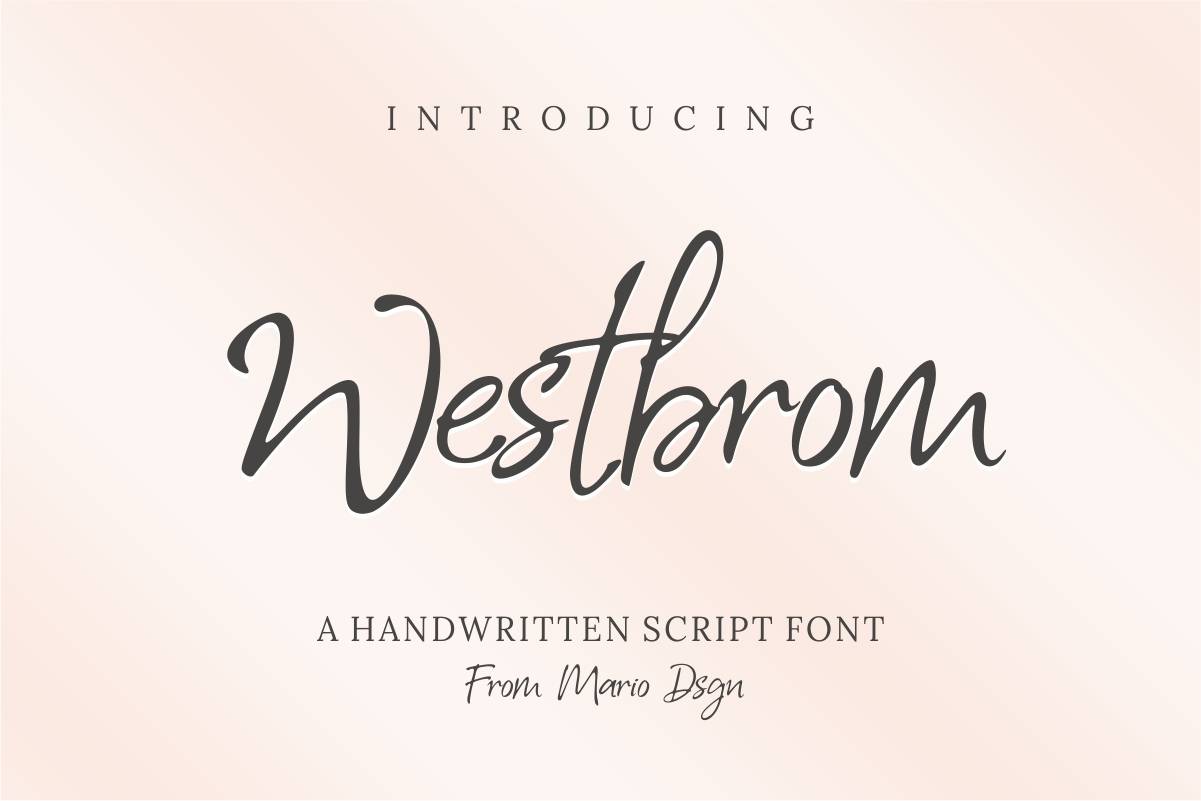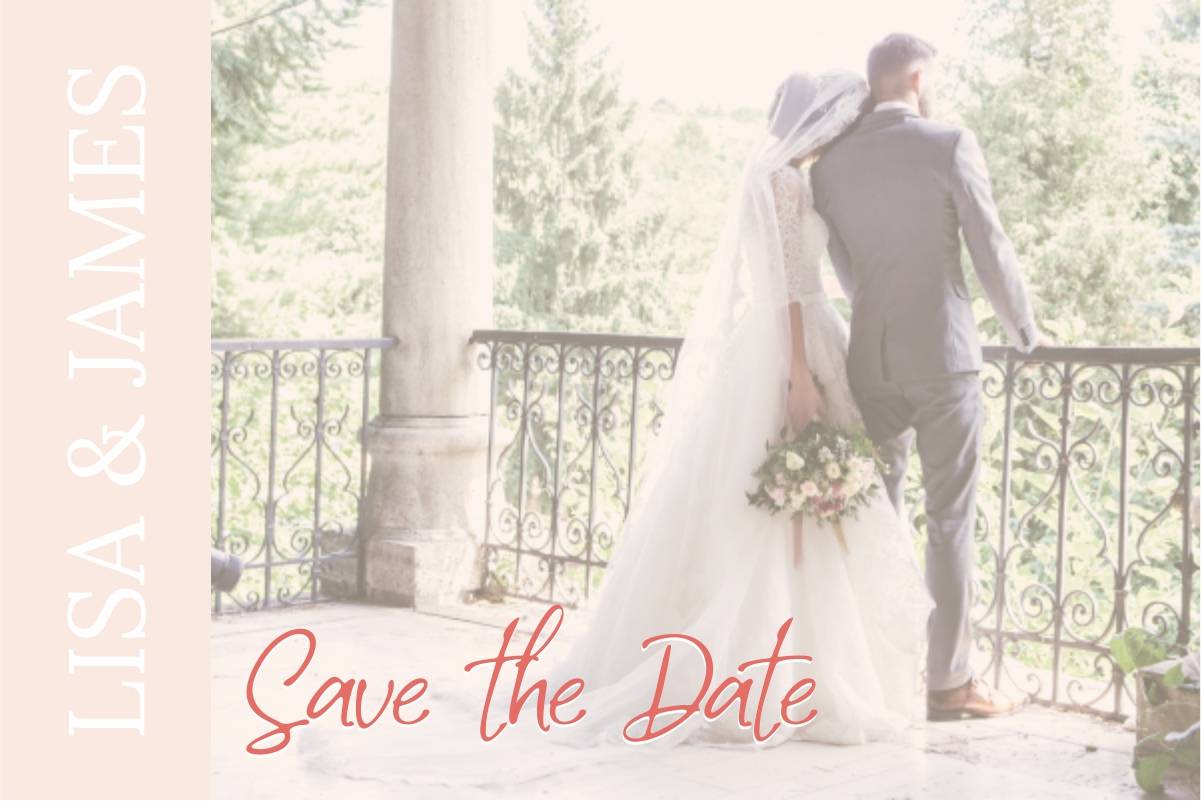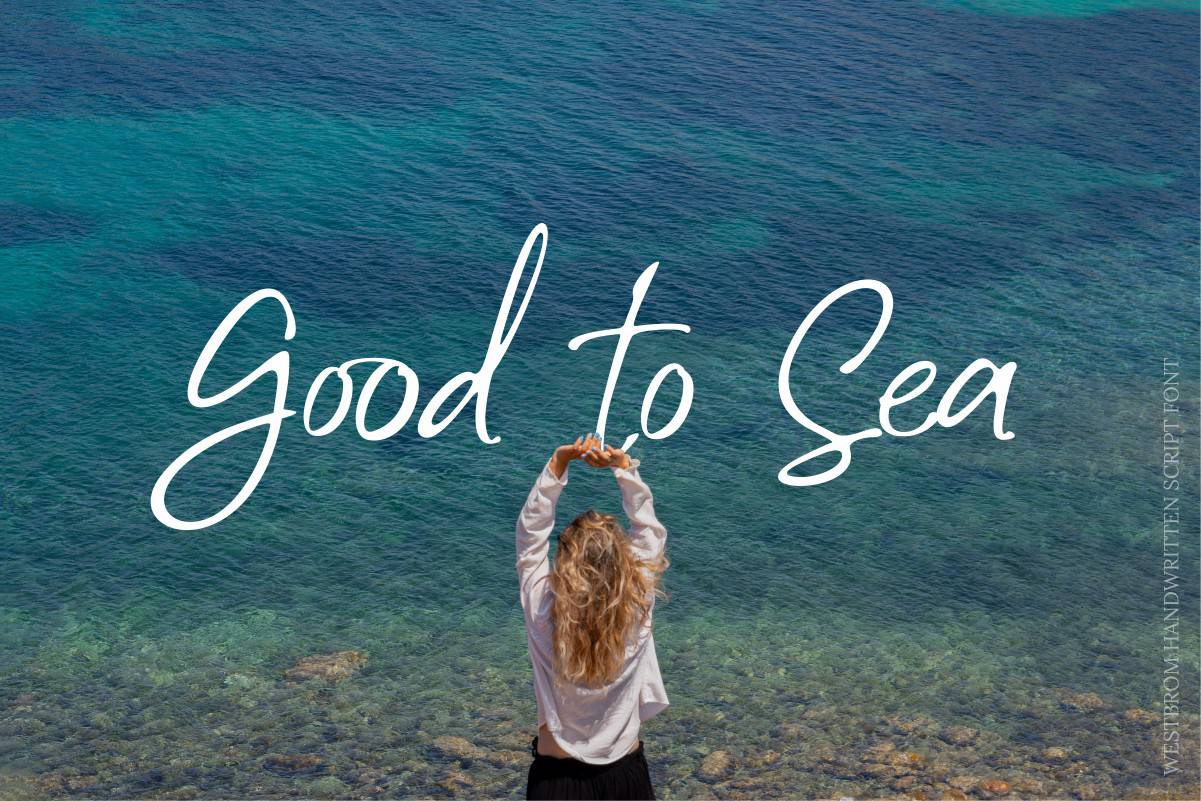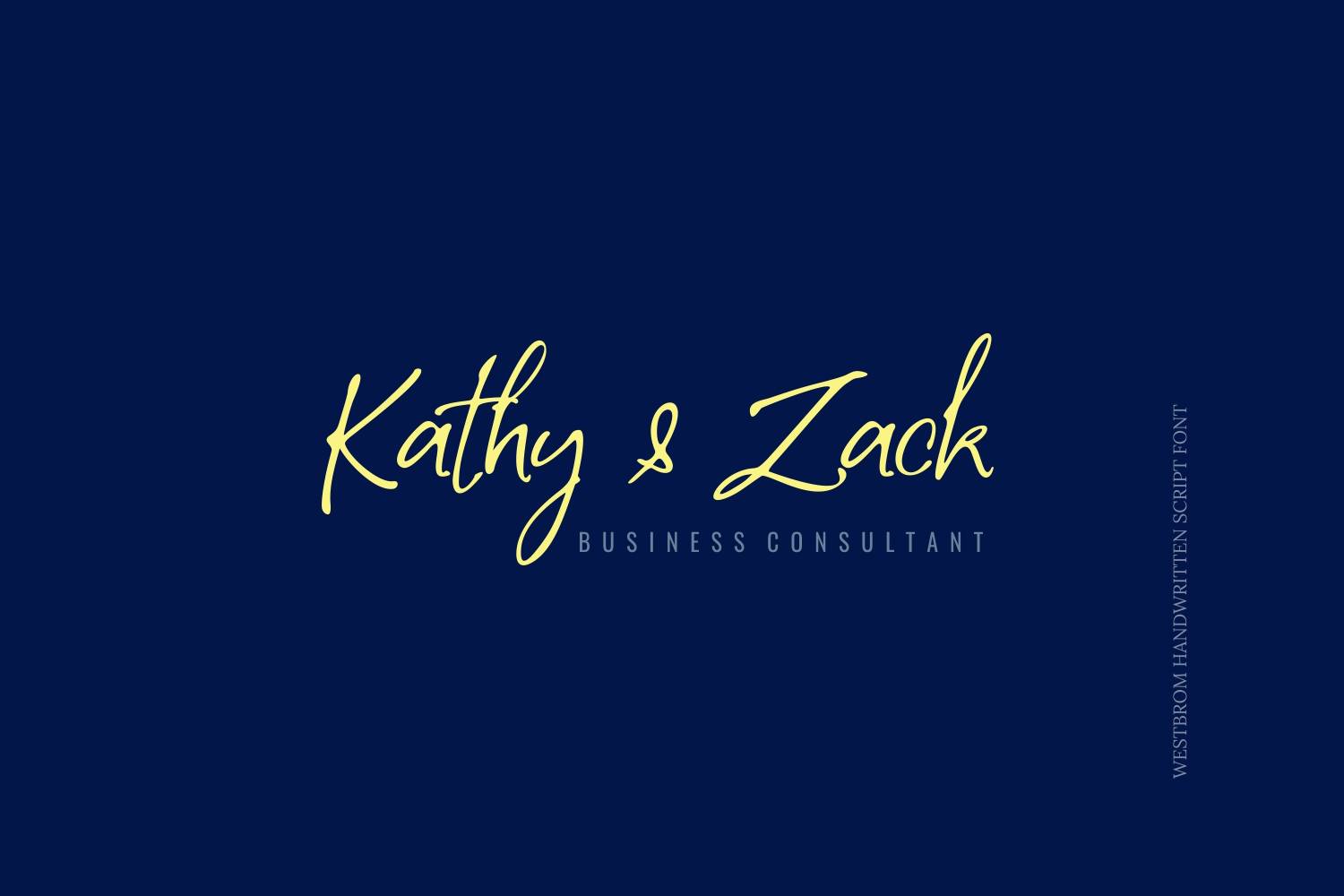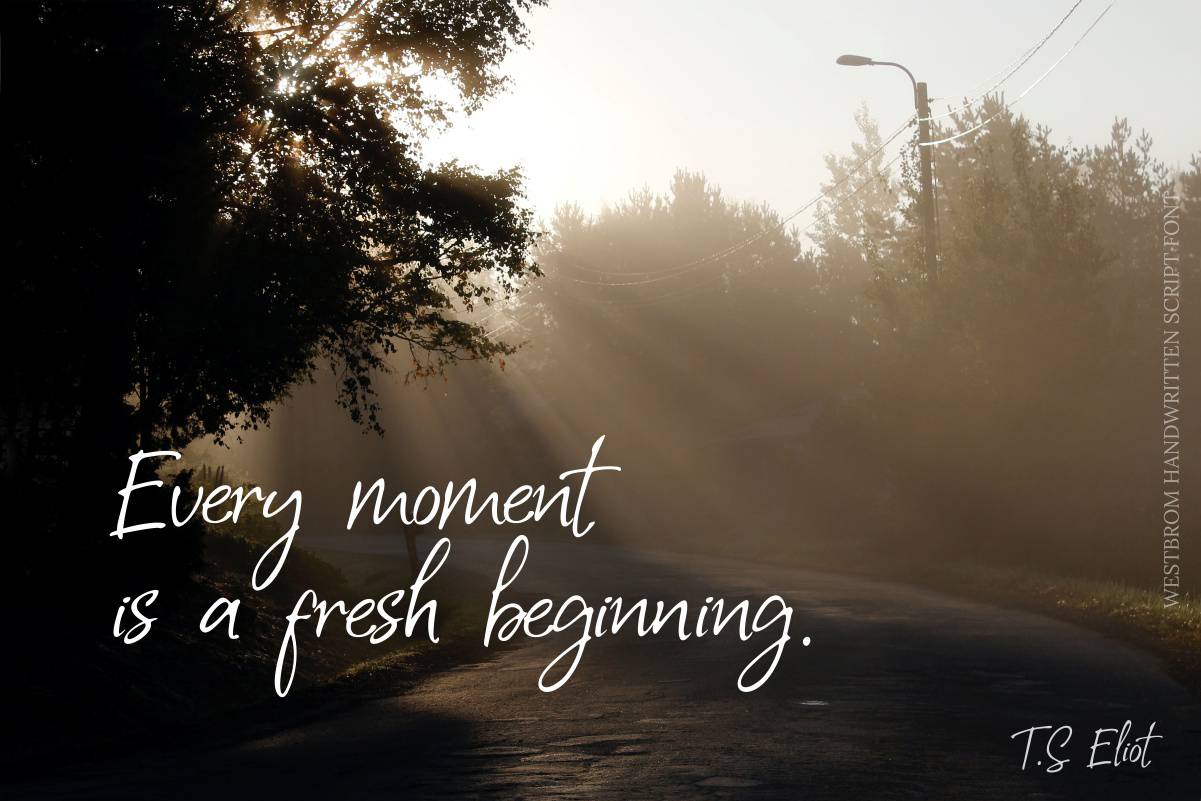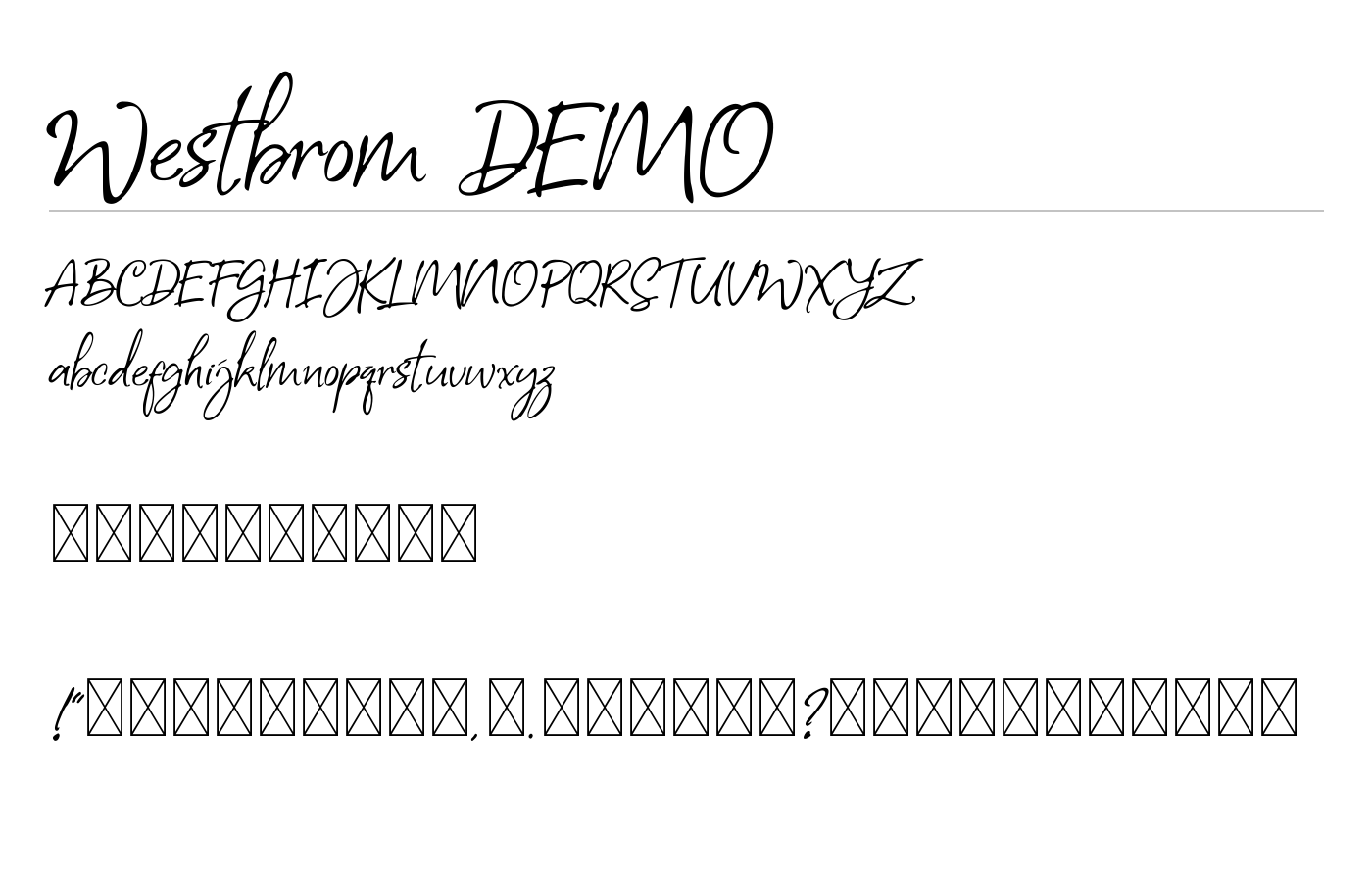
Westbrom is a delicate, flowing script font with a handwritten, casual elegance that feels both personal and artistic. Its slender strokes and tall, slightly irregular letterforms give it a charming, dynamic character perfect for invitations, branding, and creative projects where a natural, stylish touch is desired. This font works best in headlines or decorative uses where its graceful personality can shine.
Westbrom Font
About Westbrom Font